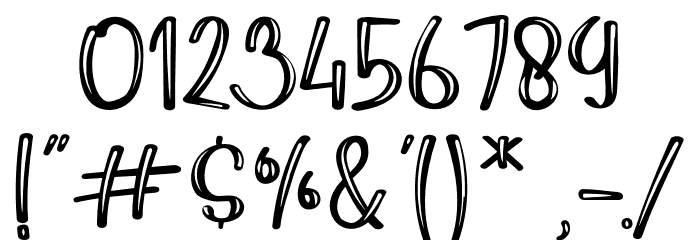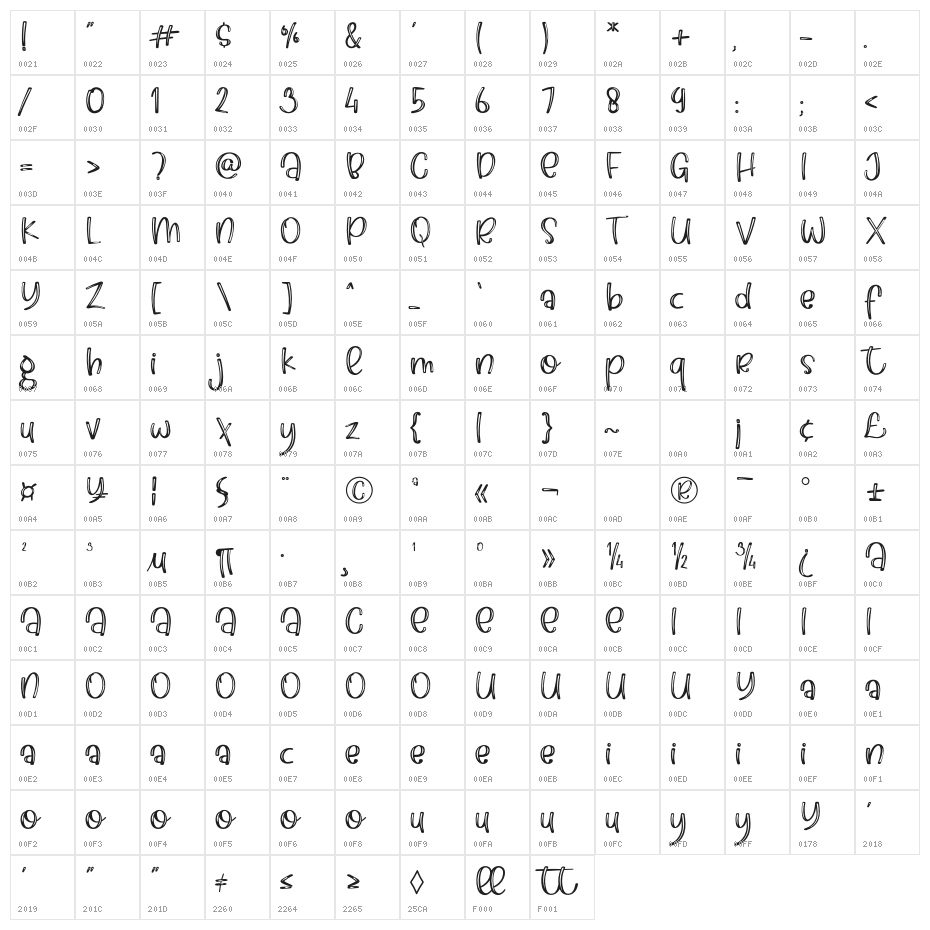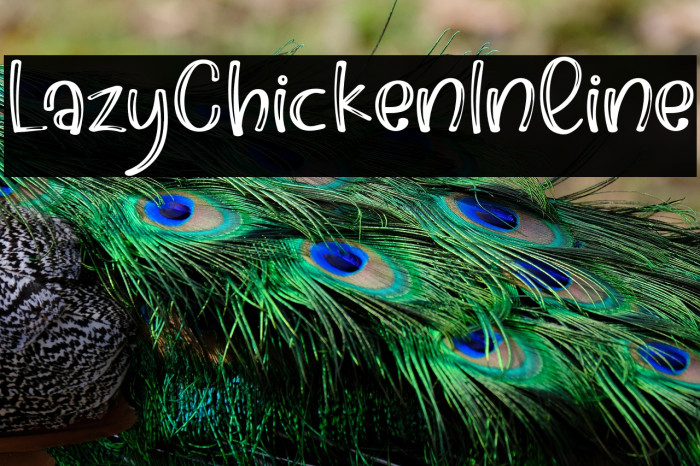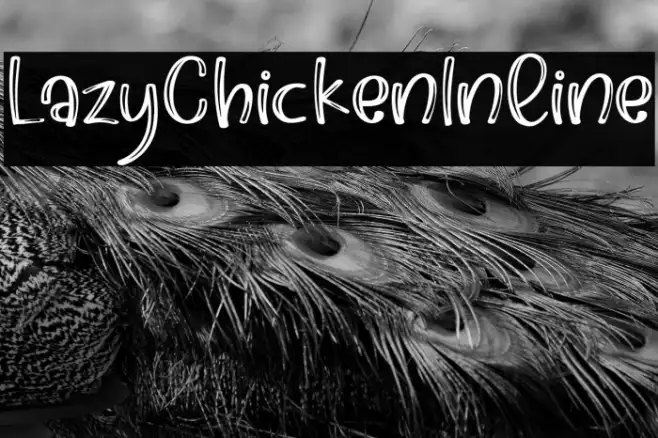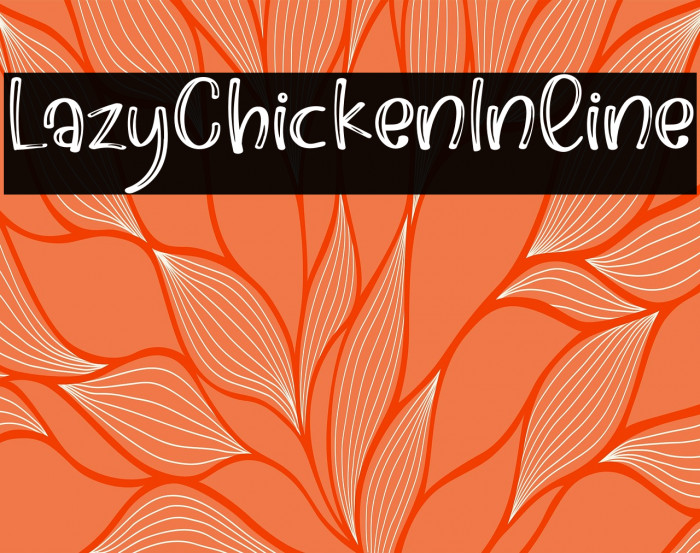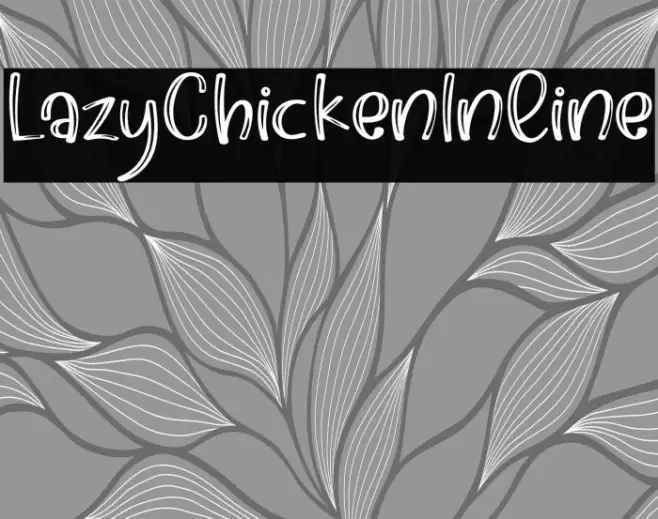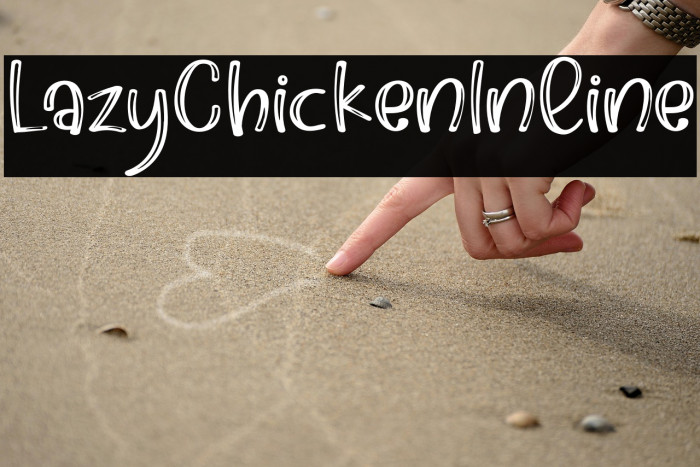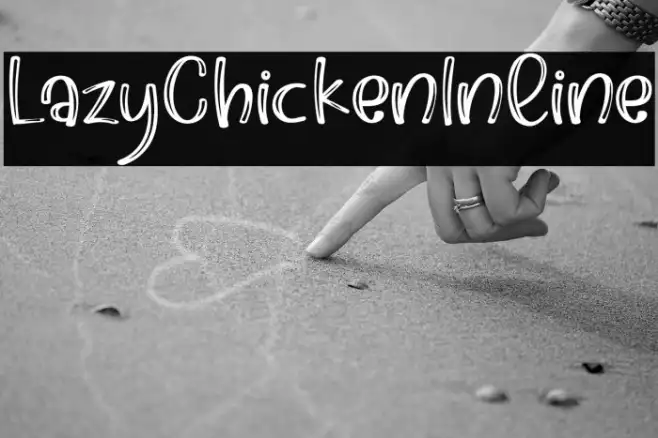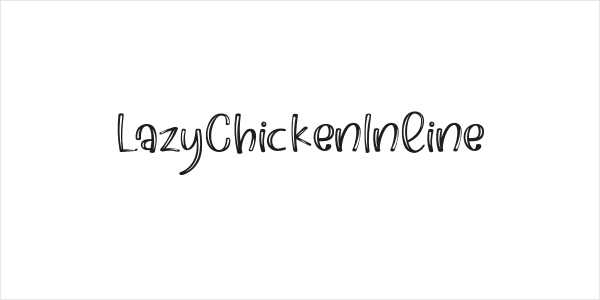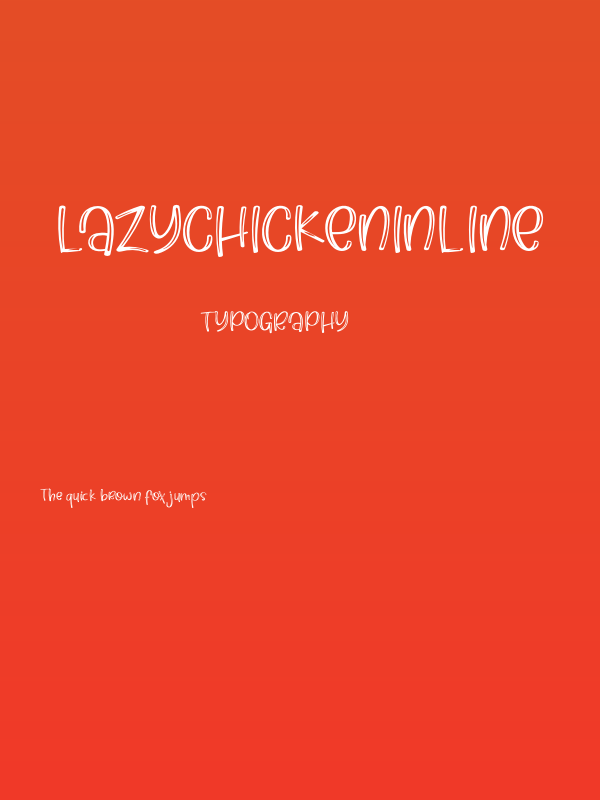
LazyChickenInline Font
LazyChickenInline Description
This playful and whimsical font features a hand-drawn style with a casual and friendly appearance. The letters have a unique, slightly irregular shape that adds a touch of personality and charm. The strokes are bold and rounded, giving the font a lively and approachable feel. The uppercase and lowercase letters maintain a consistent style, while the numbers and special characters complement the overall design. This font is perfect for projects that require a fun and informal touch, such as children's books, greeting cards, or playful branding.
Overall StylePlayful
Use CaseHeadlines, Logos, Informal text
Proposed ProjectsIdeal for children's books, greeting cards, playful branding, and informal designs.